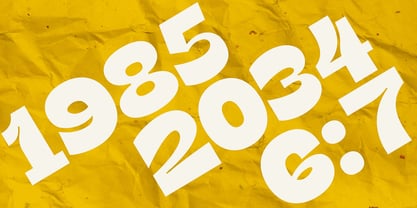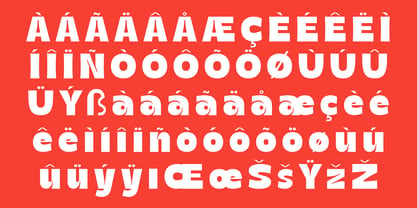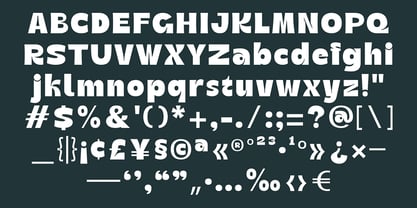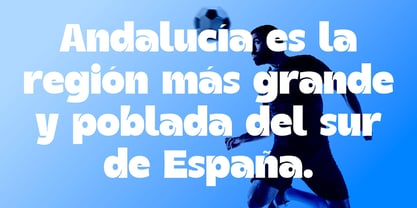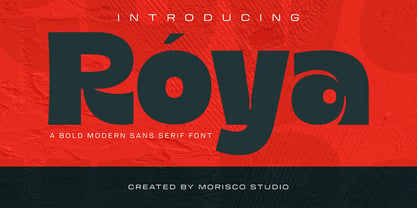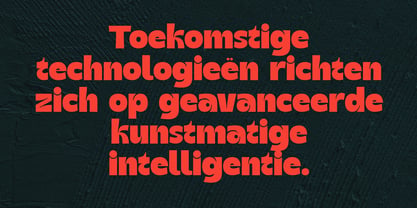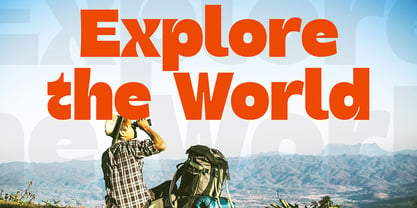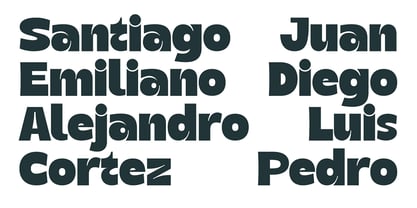
Roya
La familia tipográfica Roya fue diseñada por Fathur Rahman y publicada por Morisco Studio. Roya contiene 1 estilos. Más información sobre esta familia
Roya is a bold font with a unique character designed by Morisco Studio. This typeface is well-suited for headlines and any project, like branding, print templates, logos, and more.
Features:
• Uppercase & Lowercase
• Symbols & Punctuation
• Multilingual